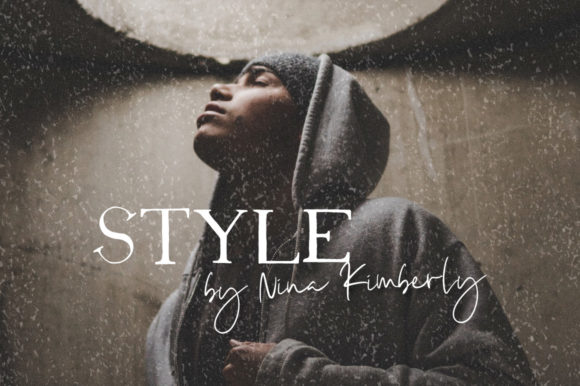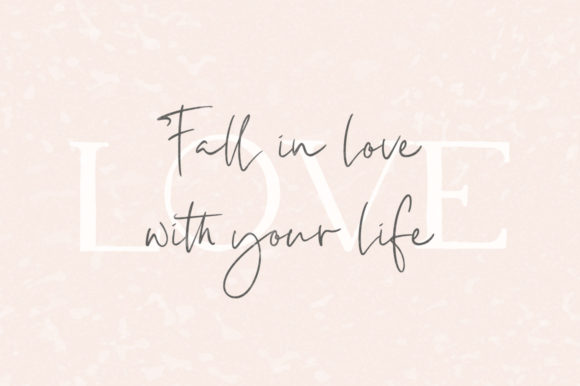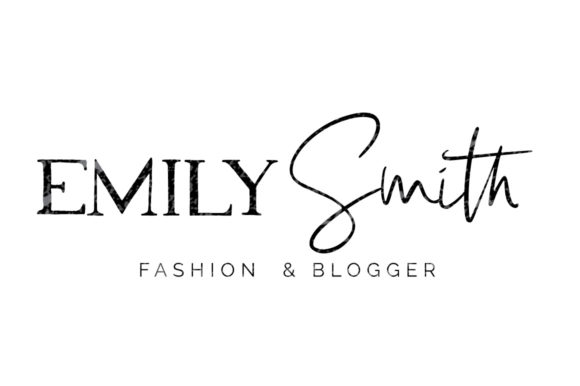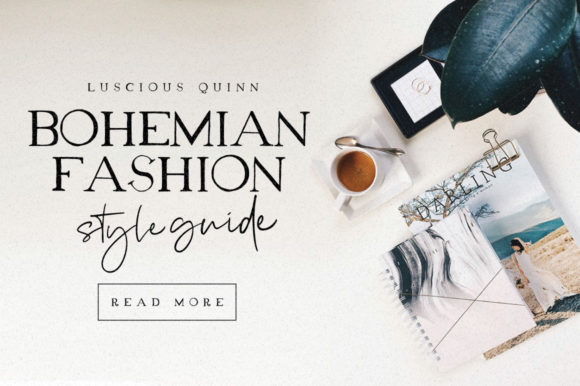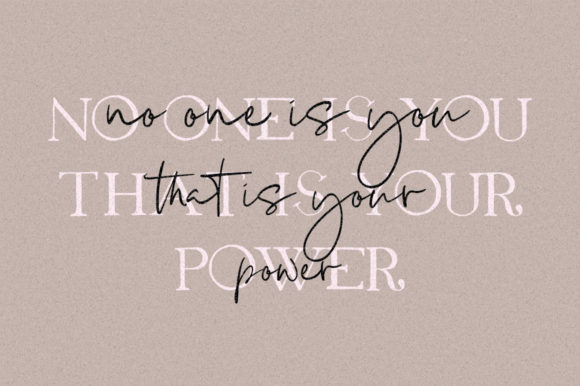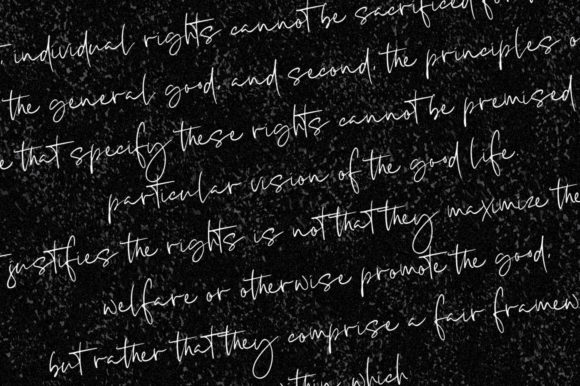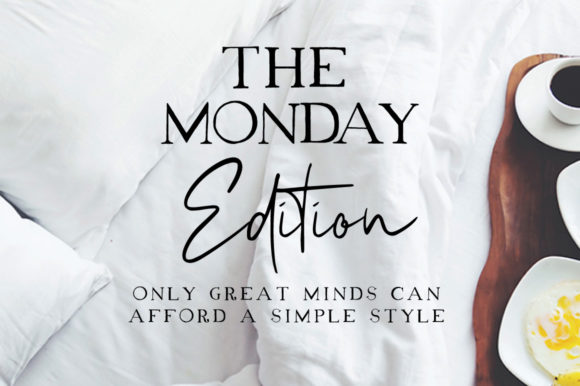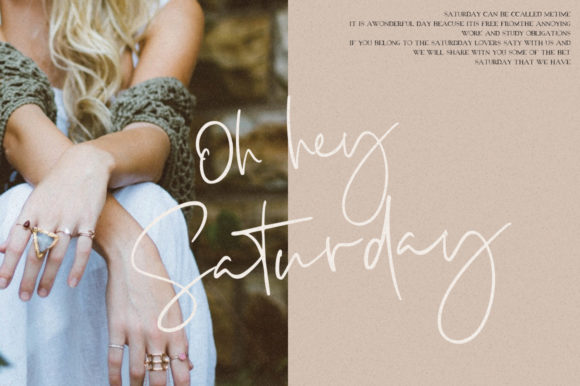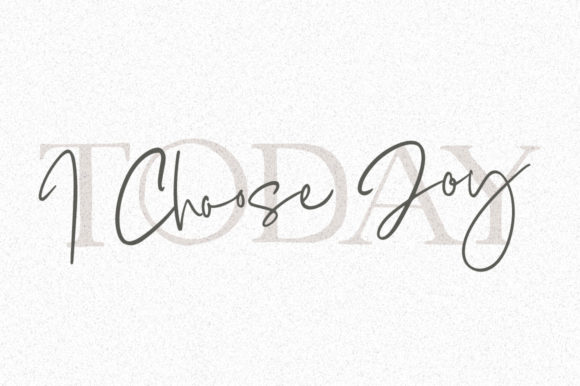
Luscious Quinn Duo Font
About Luscious Quinn Duo Font
The Luscious Quinn is a luxurious font duo. This contemporary pair of script and serif fonts includes a stylish, all-caps, hand lettered serif and an elegant and beautiful script.
It offers you a beautiful harmony for a diversity of design projects, including logos & branding, wedding designs, social media posts, advertisements & product designs.